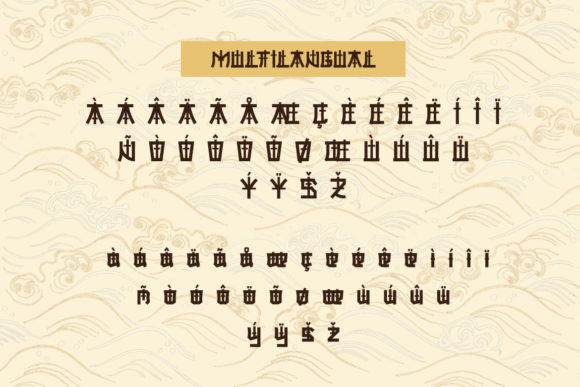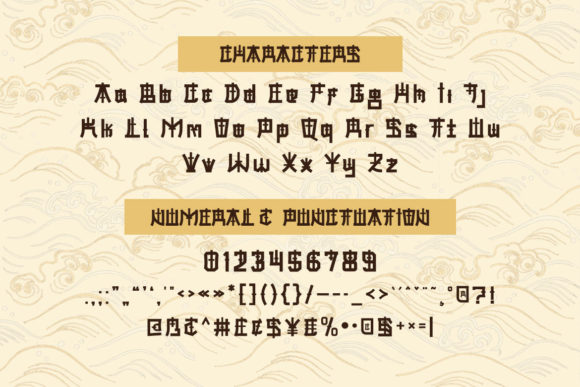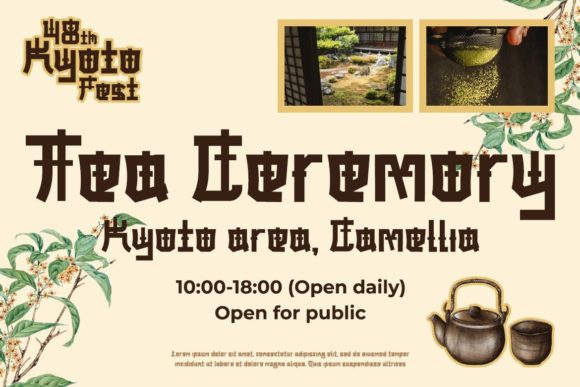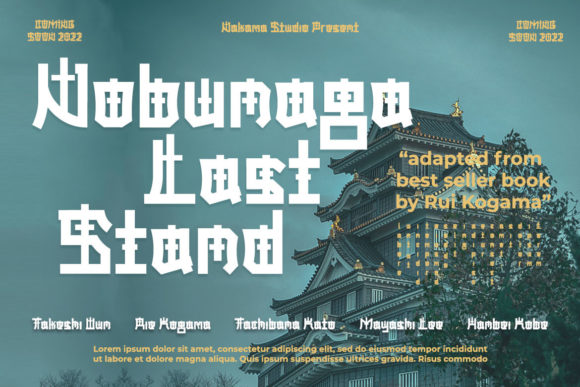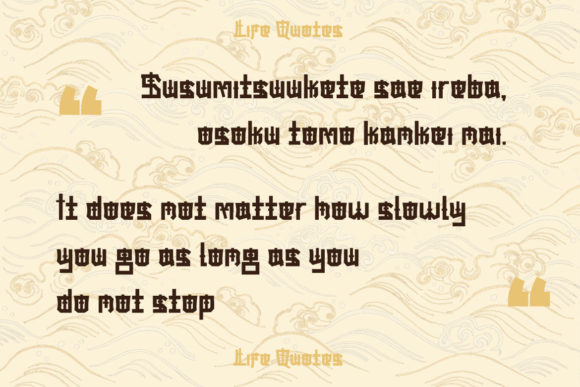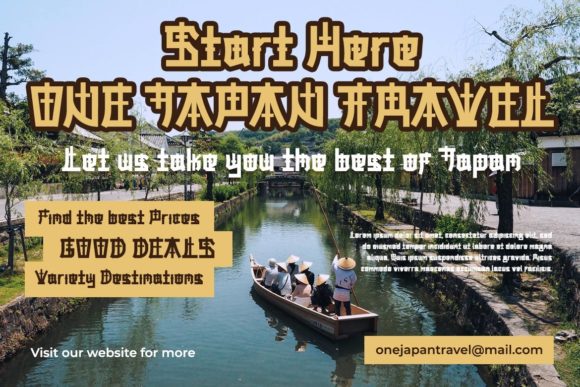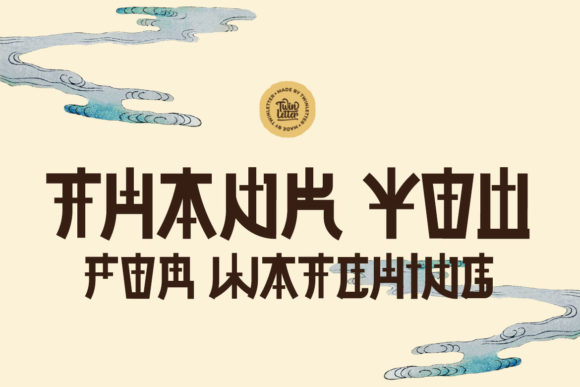
Introducing Dezaru Font: A Japanese-Inspired Display Font Like No Other
In the world of typography, fonts come and go, but only a few leave a lasting impression. Dezaru Font is one such unique gem that has been making waves in the design community. This Japanese-inspired display font is unlike any other, boasting a distinctive shape and style that sets it apart from the rest. If you’re a designer, crafter, or simply a typography enthusiast, you’ll want to get familiar with Dezaru Font.
What Makes Dezaru Font So Unique?
Dezaru Font’s uniqueness lies in its innovative blend of traditional Japanese elements and modern design sensibilities. The font features a bold, expressive, and quirky appearance that makes it perfect for headlines, titles, and other display purposes. Its unusual design ensures that your text will stand out from the crowd, grabbing the attention of your audience and leaving a lasting impression.
Key Features of Dezaru Font
- Japanese-Inspired Design: Dezaru Font draws inspiration from traditional Japanese typography, incorporating elements that reflect the country’s rich cultural heritage.
- Unique Shape and Style: The font’s distinctive shape and style set it apart from other display fonts, making it perfect for designers looking to add a touch of individuality to their work.
- Bold and Expressive: Dezaru Font is designed to make a statement, with bold lines and expressive curves that add a touch of drama to your text.
- Quirky and Playful: The font’s quirky appearance makes it perfect for projects that require a touch of whimsy and playfulness.
Use Cases for Dezaru Font
Dezaru Font’s versatility makes it suitable for a wide range of design projects, including:
- Headlines and Titles: Use Dezaru Font to create eye-catching headlines and titles that grab attention and set the tone for your content.
- Branding and Logo Design: Dezaru Font’s unique appearance makes it perfect for branding and logo design projects that require a distinctive touch.
- Posters and Flyers: Add a touch of drama and whimsy to your posters and flyers with Dezaru Font.
- Digital Media: Dezaru Font is perfect for digital media projects, including social media graphics, video titles, and more.
Tips for Using Dezaru Font Effectively
To get the most out of Dezaru Font, follow these tips:
- Use it Sparingly: Dezaru Font’s bold and expressive design makes it perfect for display purposes, but use it sparingly to avoid overwhelming your audience.
- Pair it with a Simple Font: Pair Dezaru Font with a simple, clean font to create visual contrast and make your text more readable.
- Experiment with Colors: Dezaru Font’s unique design makes it perfect for experimenting with bold and bright colors.
Dezaru Font is a game-changer for designers and crafters looking to add a touch of uniqueness to their work. Its Japanese-inspired design, bold and expressive appearance, and quirky style make it perfect for a wide range of design projects. Whether you’re looking to create eye-catching headlines, distinctive logos, or playful posters, Dezaru Font is the perfect choice. So why settle for ordinary fonts when you can make a statement with Dezaru Font?